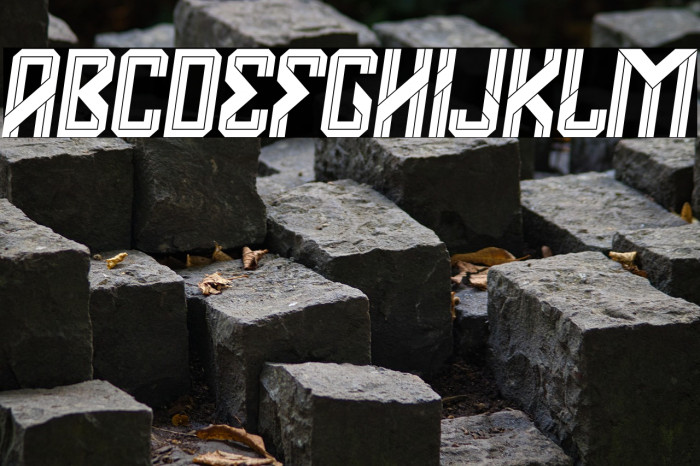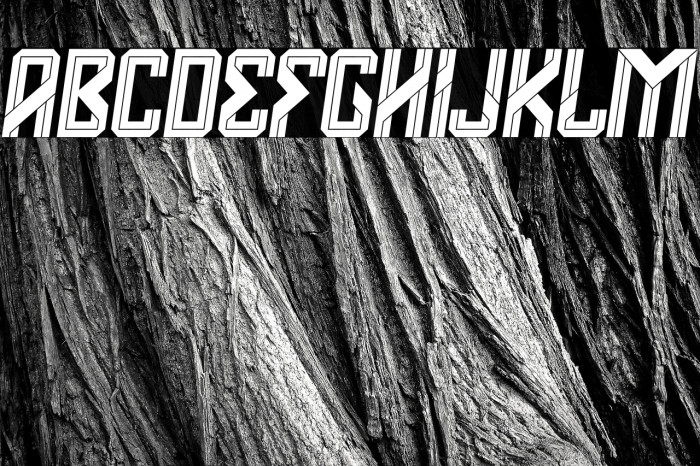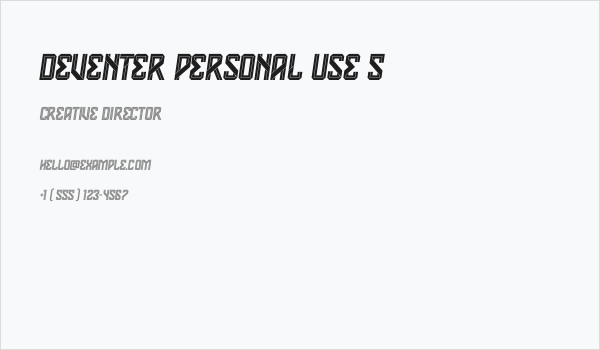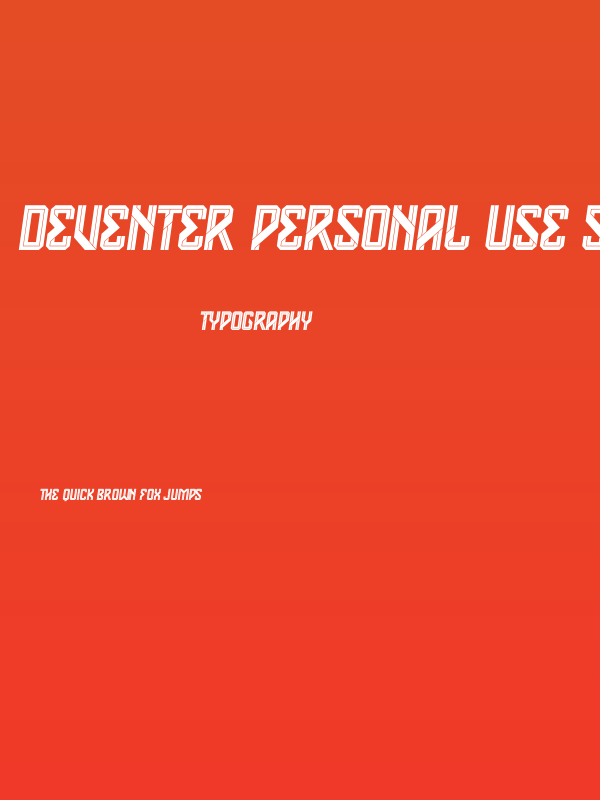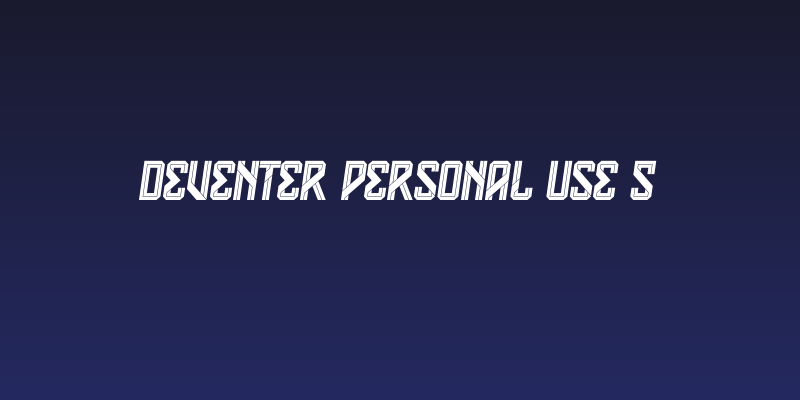
Deventer PERSONAL USE 5 Font
Deventer PERSONAL USE 5 Description
This font features a bold, geometric design with a futuristic and dynamic appearance. The characters are constructed with sharp angles and a distinct three-dimensional effect, giving them a sense of depth and movement. The uppercase and lowercase letters maintain a consistent style, with the numbers and special characters complementing the overall aesthetic. The font's unique structure makes it stand out, ideal for projects that require a modern and edgy look.
| Proposed Projects | Ideal for branding, posters, album covers, and any project needing a modern, edgy look. |